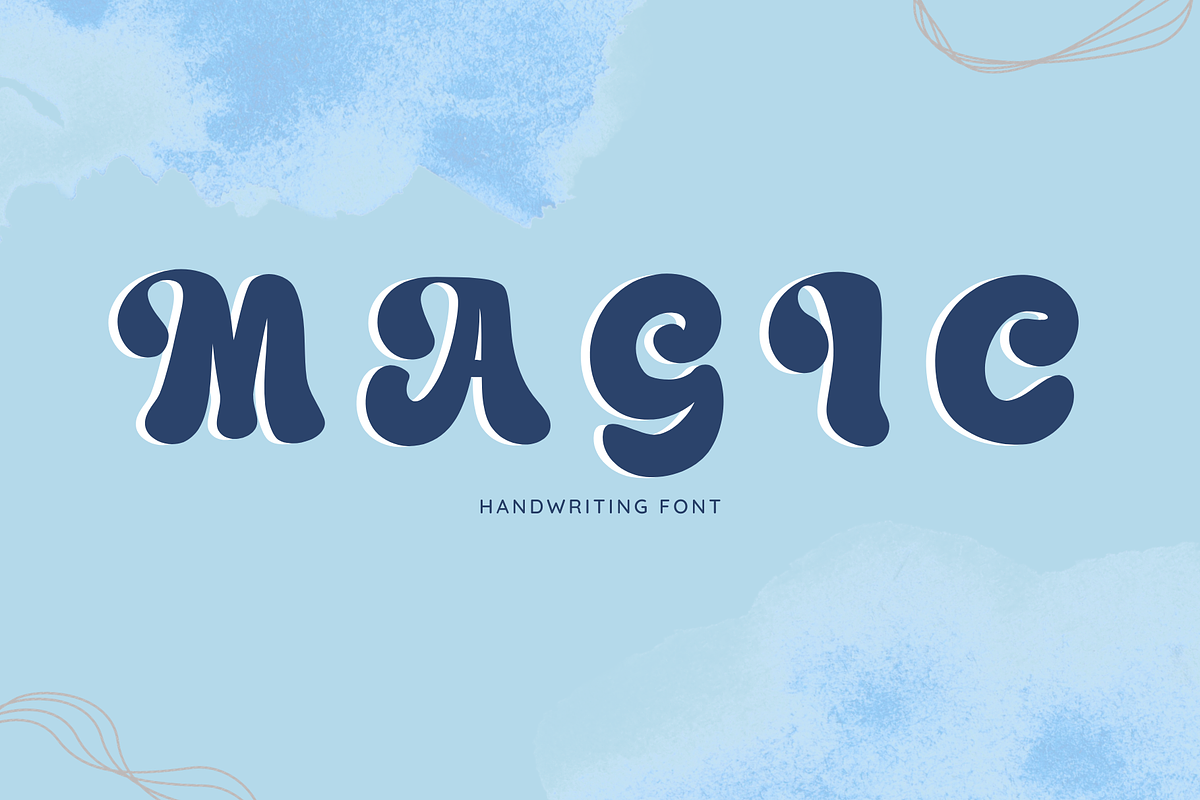
Magic Font Free Download is a whimsical and enchanting typeface designed to bring a sense of wonder and charm to your designs. With its playful curves, flowing strokes, and fantasy-inspired feel, this font is perfect for children's books, invitations, holiday-themed projects, social media posts, and magical branding.
Whether you're crafting a storybook, a mystical logo, or a festive greeting card, Magic Font Free Download adds a touch of magic to your typography. Its easy-to-read yet whimsical design works well for both digital and print projects, creating an inviting and creative atmosphere.